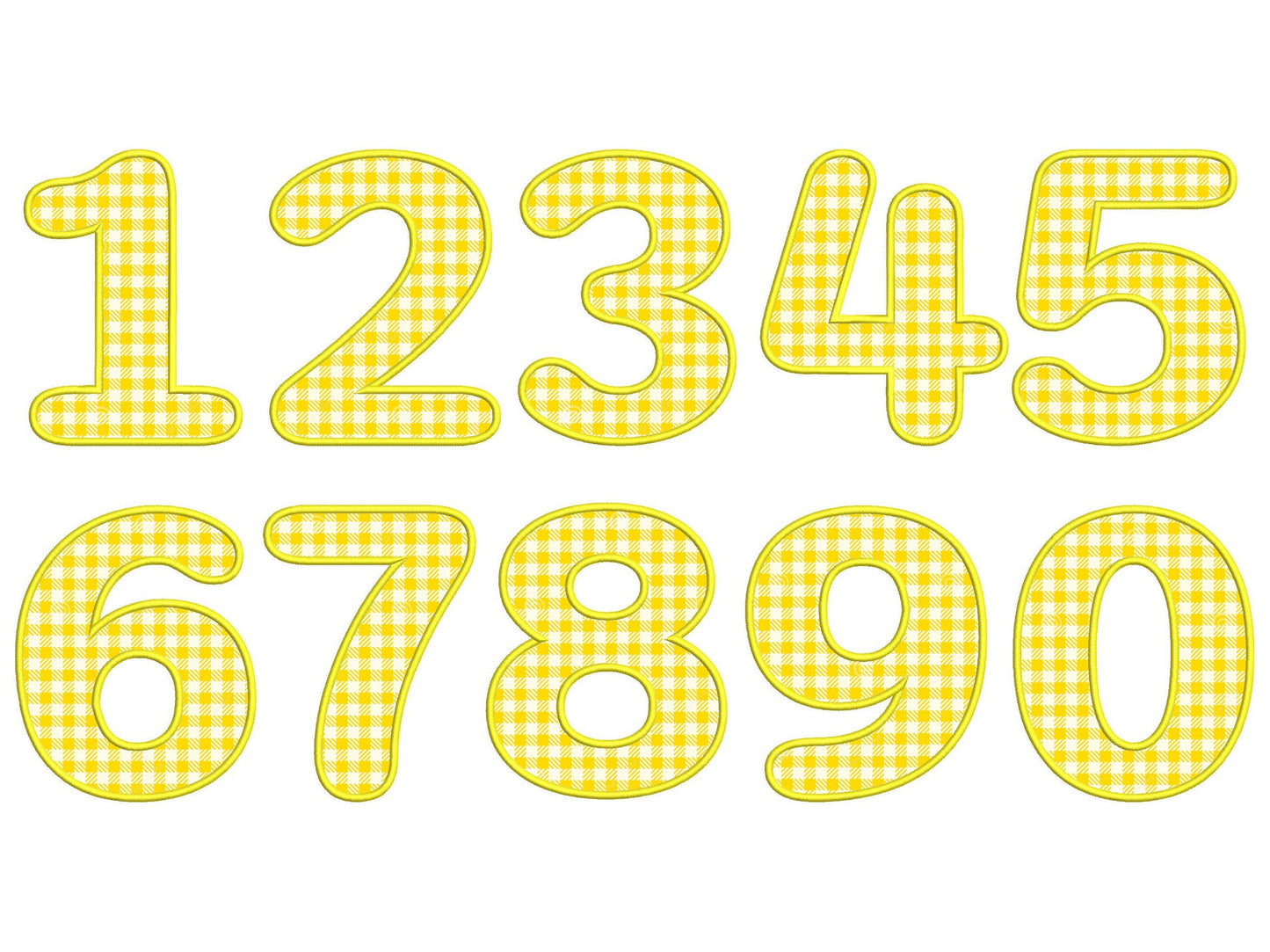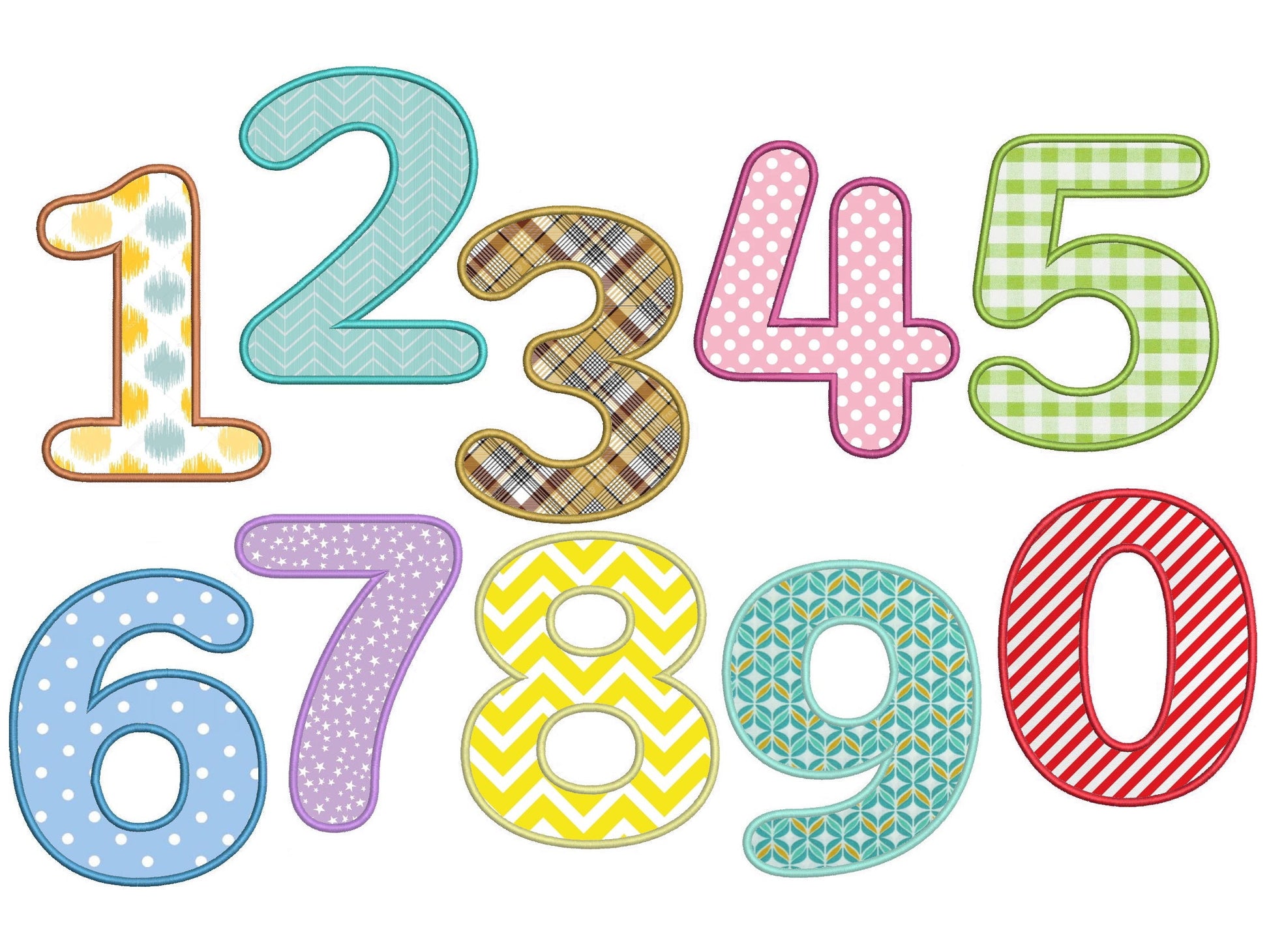
Or click to open the linkRounded retro numbers with a wide satin edge, stitched as applique. Made for kids' birthday shirts, party outfits and sports numbers.
Numbers 0 to 9 in eight sizes, from 2 to 8 inches. Applique with a wide, rounded satin border.